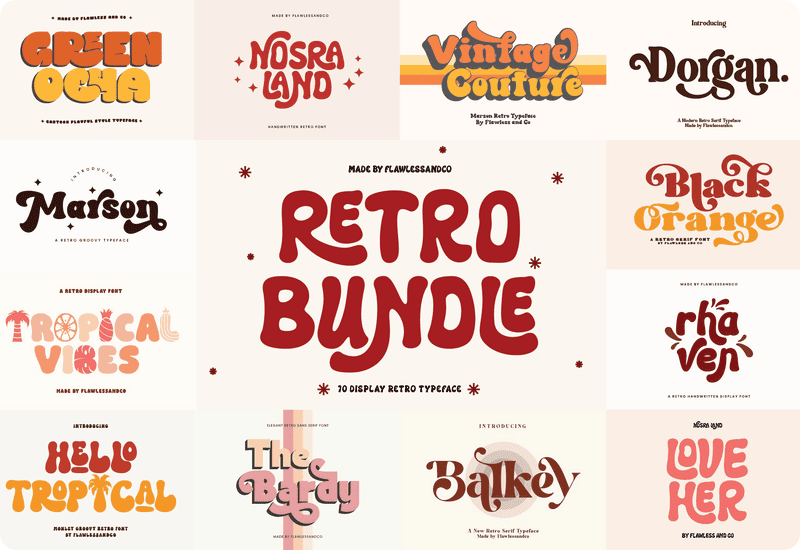
A Nostalgic Touch for Every Creative Project
The Retro Font Bundle delivers everything you need to bring a nostalgic, groovy vibe to your creative projects. Featuring 10 professionally crafted retro fonts, this bundle blends vintage charm with modern versatility, making it a valuable resource for designers, crafters, marketers, and business owners.
What’s Included in the Retro Font Bundle
This bundle includes 10 standout fonts, each with its own character and flair:
- Balkey: A captivating retro serif font that infuses fun and uniqueness into your designs. Ideal for branding, packaging, and retro-themed projects that need a playful yet refined touch.
- Bardy: An elegant retro sans-serif font offering a modern twist on vintage typography. Bardy is perfect for creating stylish, high-end logos and marketing materials.
- Black Orange: Dive into timeless design with this sophisticated retro serif font, exuding vintage charm and classic elegance. Ideal for formal invitations, signage, and heritage branding.
- Dorgan: An elegant retro serif font with bohemian vibes, multilingual support, and alternate characters. Dorgan brings an upscale, international feel to your creative work.
- Green Ocha: A cartoon-style playful font filled with groovy energy. Green Ocha is perfect for children’s books, comics, creative branding, and cheerful merchandise designs.
- Marson: This groovy retro typeface delivers authentic nostalgic flair, ideal for music posters, event branding, and funky apparel designs.
- Monley: A bold and playful retro font, Monley shines in boho-themed projects, creative advertising, and youthful branding campaigns.
- Nosra Land: A handwritten sans-serif font combining organic charm and clean lines. It’s a great choice for packaging design, trademarks, and logo work.
- Rhaven: A delightful display font designed for playful yet professional branding. Rhaven’s bold forms make it a top pick for logo design and product packaging.
- Tropical Vibes: Transport your designs to a sun-soaked, carefree era with this display retro font—perfect for leisure brands, travel marketing, and lifestyle products.
Key Features of the Bundle
Each font in the Retro Font Bundle offers features that make designing easier, faster, and more creative:
- Brand Identity & Logos: Craft memorable brand visuals with fonts that make a strong statement.
- T-Shirts & Apparel: Design eye-catching clothing graphics for online shops or local boutiques.
- Social Media Graphics: Create scroll-stopping posts that showcase your brand’s vintage side.
- Stationery & Business Cards: Present yourself professionally with custom-designed stationery that leaves a lasting impression.